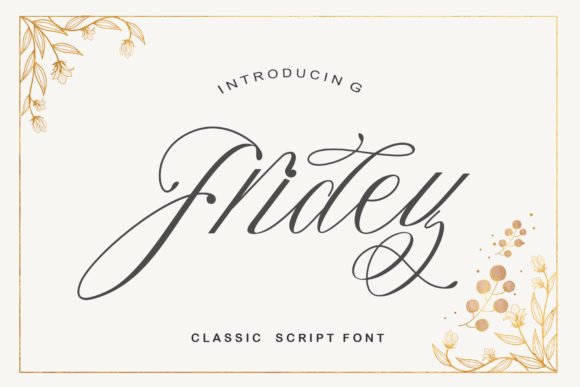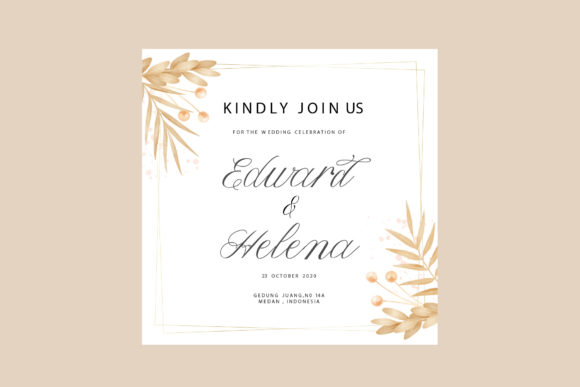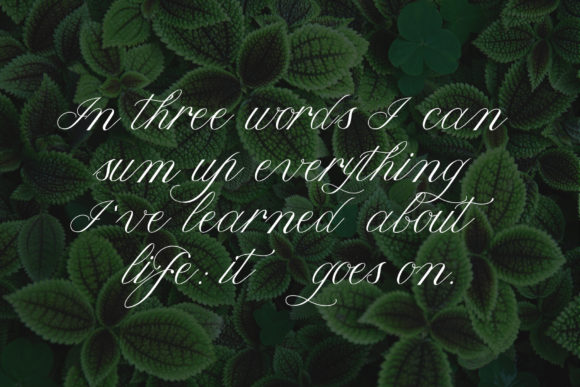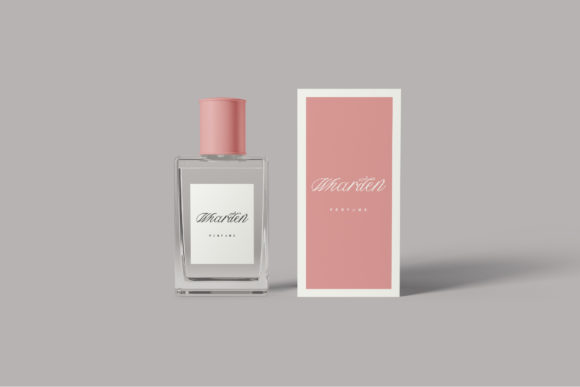
The Perfect Font for Your Next Masterpiece
Have you ever stared at a blank page, waiting for the perfect font to spark your creativity? For designers, this moment can be both thrilling and daunting. But what if you could find the perfect font to elevate your project and leave a lasting impression? Enter Fridey Font, a stunning handwritten font that combines classic calligraphic influences with a fresh, contemporary feel.
Fridey Font is more than just a font – it’s a key to unlocking your creative potential. With its elegant curves and precise lines, it’s the perfect addition to any project, from branding and advertising to editorial and fine art. Whether you’re a seasoned designer or just starting out, Fridey Font is a valuable asset that will help you bring your vision to life.
Fridey Font Key Features
- Unique Characteristics: Fridey Font features a unique blend of modern and vintage design elements, with intricate details and ornate flourishes that set it apart from other fonts.
- Scalability: Fridey Font is designed to be highly scalable, allowing it to be used effectively in a wide range of applications, from small text to large headings and titles.
Fridey Font Review
Overall, I’m impressed with the Fridey Font. Here are some of its standout features:
- ✨ Unique and modern design that stands out from the crowd
- ✨ Excellent legibility, making it perfect for body text and headings
- ✨ Supports a wide range of languages, including Cyrillic and Greek
- ✨ Highly customizable, with various font weights and styles to choose from
- ⚠️ Not as suitable for serif-heavy designs, as it can look a bit awkward in those situations
- ⚠️ Some users may find the font too bold or overwhelming in certain contexts
Overall, I’d say the Fridey Font is a solid choice for modern designs that need a bit of flair. While it’s not perfect, its unique design and excellent legibility make it a great addition to any font collection.
For best results, use Fridey Font in conjunction with bold or italic styles to add emphasis. Experiment with different font sizes to create visual hierarchy. Use Fridey Font in combination with other fonts to create a unique and modern typography.
Fridey Font is ideal for creative projects, such as logos, graphics, and infographics. It’s also suitable for presentations, reports, and documents that require a modern and playful touch. Use Fridey Font to add a personal touch to your designs and communicate your message effectively.